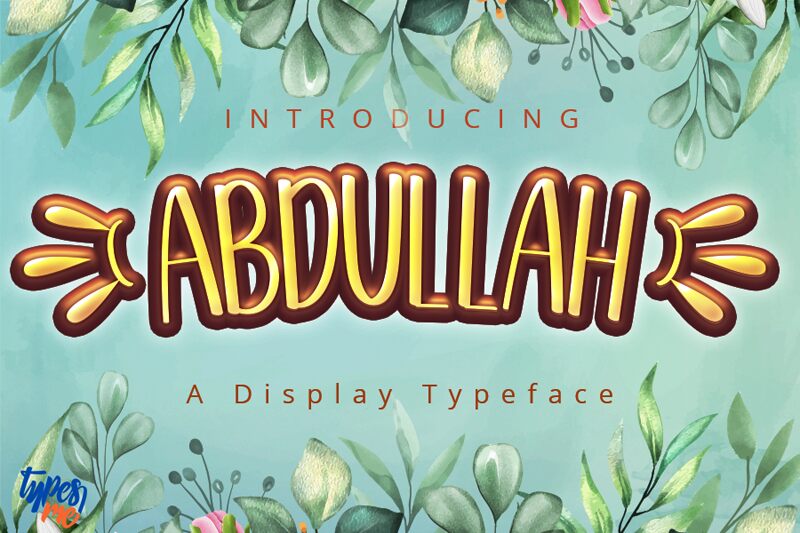
Abdullah
Abdullah, the mesmerizing creation by Typesme Studio, is a remarkable handwritten font that exudes elegance and charm. With its semi-light weight and condensed width, Abdullah possesses a unique balance of sophistication and playfulness. This versatile font is perfect for diverse projects such as wedding invitations, fashion blogs, branding materials, and even children's books. Its graceful curves and distinctive strokes will add a touch of whimsy to any design while maintaining readability. Let Abdullah be your go-to choice for those seeking an artistic yet refined aesthetic. Elevate your creations with this gem today!